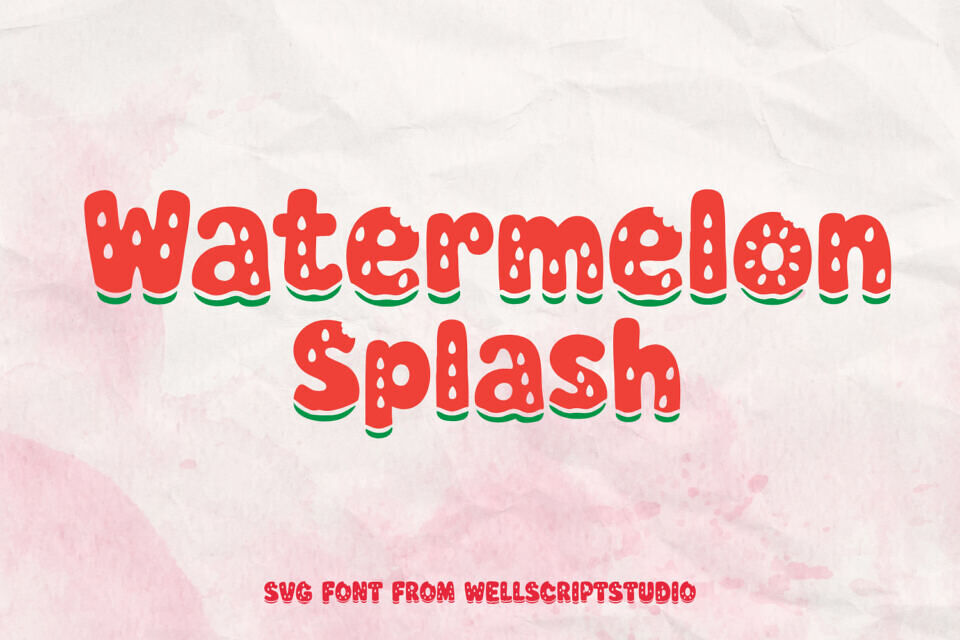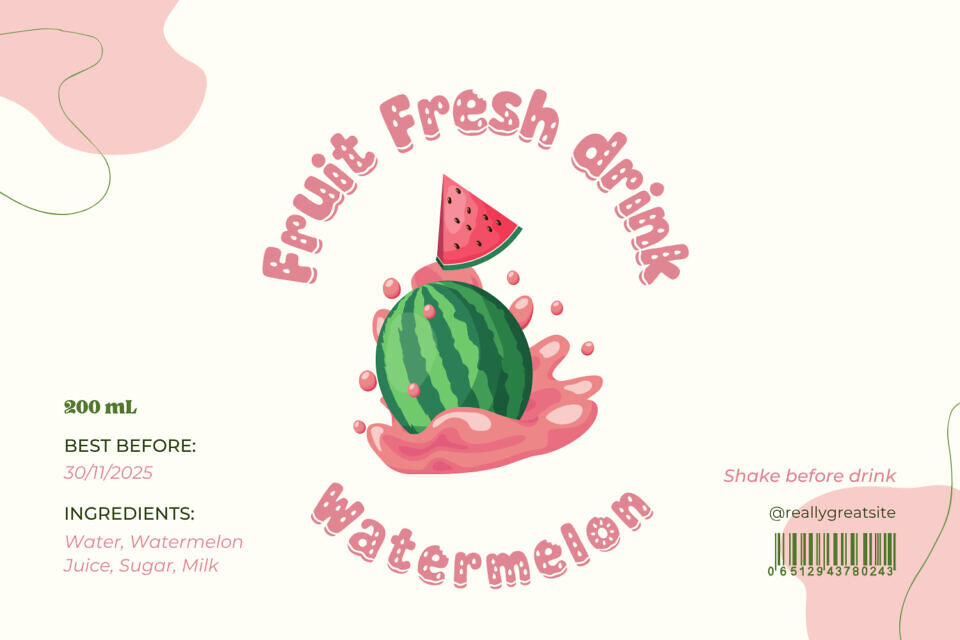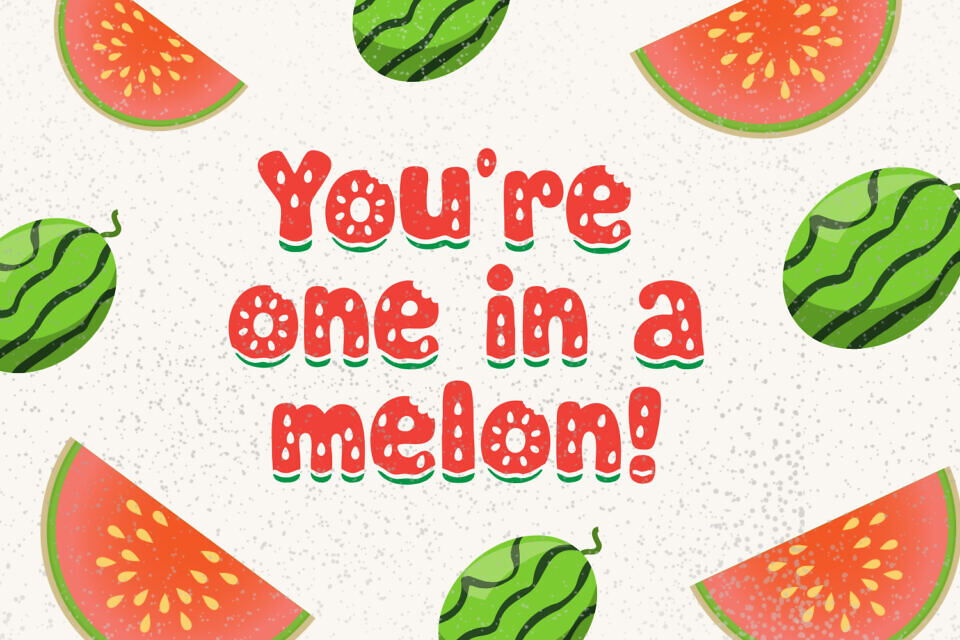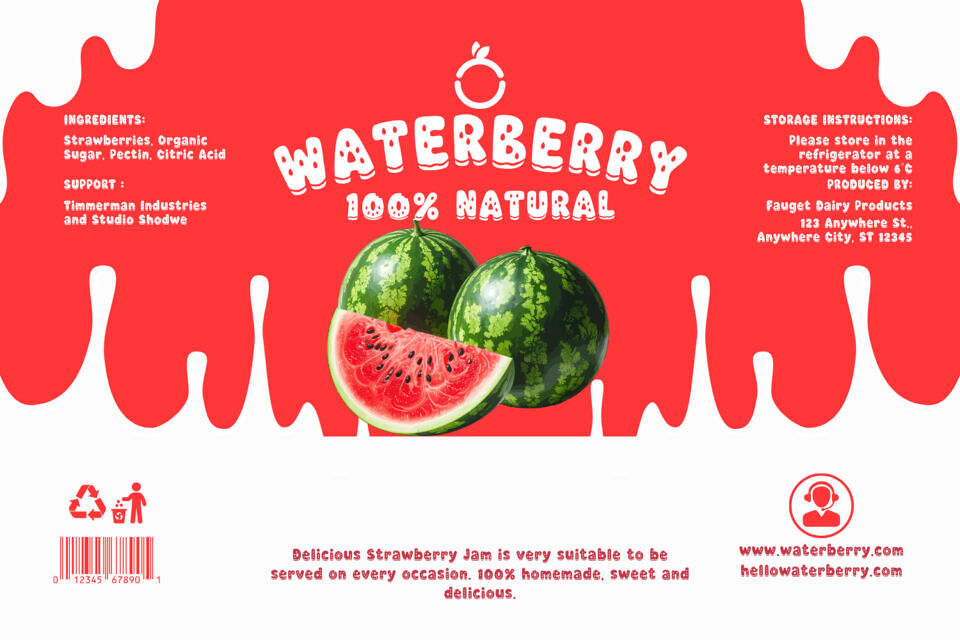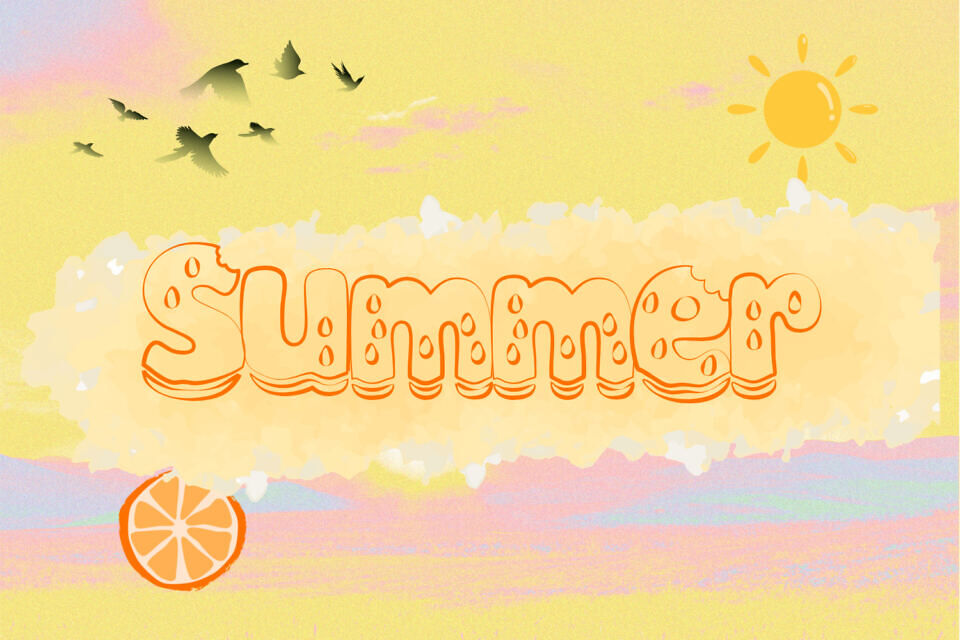
Dive into summer with Watermelon Splash, a refreshing and playful SVG display font! Packed with delicious personality, this bubbly typeface transforms your headlines into juicy slices of fun.
The design signature relies on its creative layered look: thick, rounded red letterforms serve as the sweet flesh, dotted with white seed drop-outs, while a vibrant green underside curve acts as the perfect rind. For an extra touch of charm, select characters feature whimsical bite-mark cuts out of the top edges!